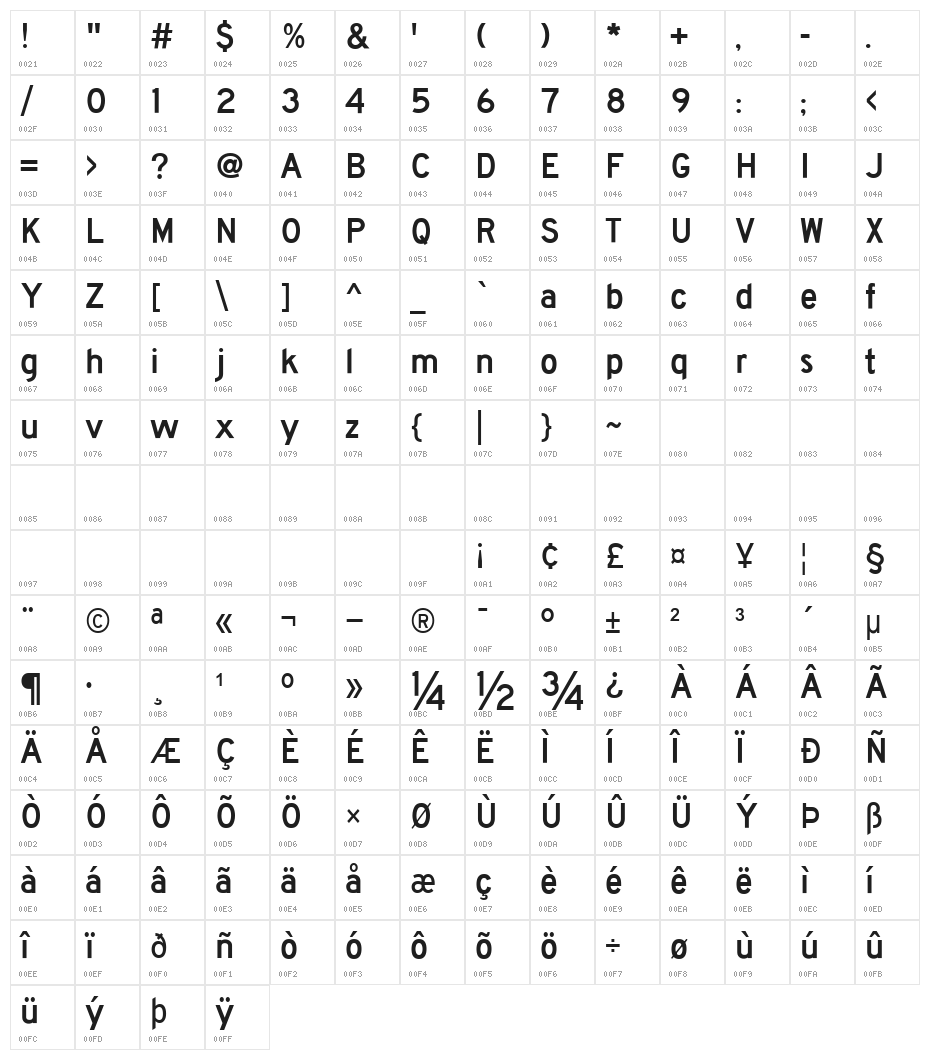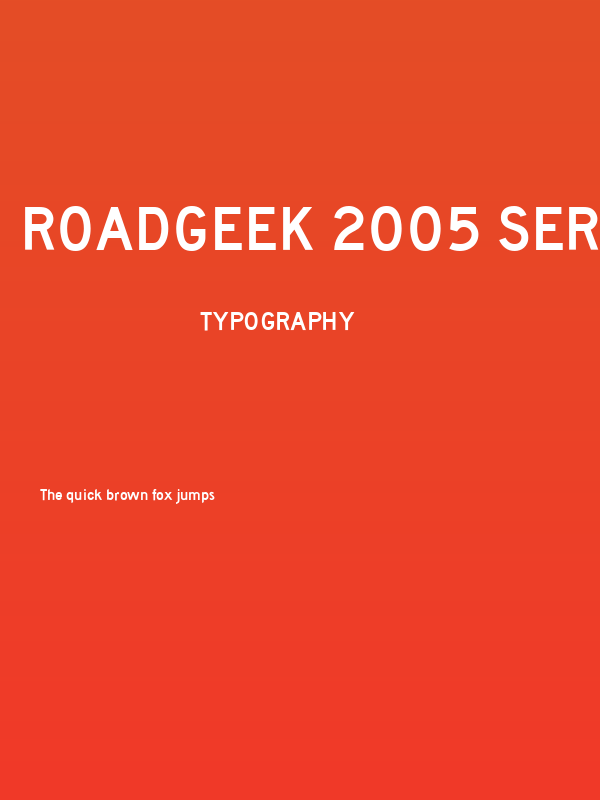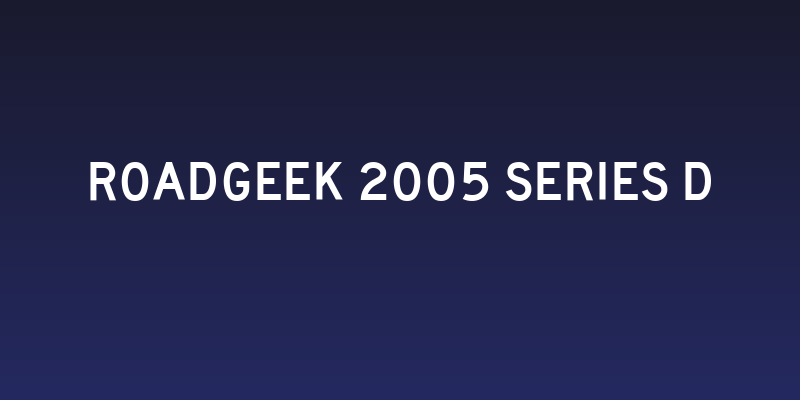
Roadgeek 2005 Series D Font
Roadgeek 2005 Series D Description
This font features a clean and straightforward sans-serif style, characterized by its geometric shapes and uniform stroke widths. The uppercase letters are bold and assertive, while the lowercase letters maintain a consistent and balanced appearance. The numerals are clear and easily distinguishable, making them ideal for readability. Special characters are well-defined, adding to the font's versatility. The overall design is modern and functional, suitable for a variety of applications where clarity and simplicity are paramount.
| Use Case | Headlines, Signage, Informational displays |
| Proposed Projects | Ideal for road signage, informational displays, and any project requiring clear, legible text. |